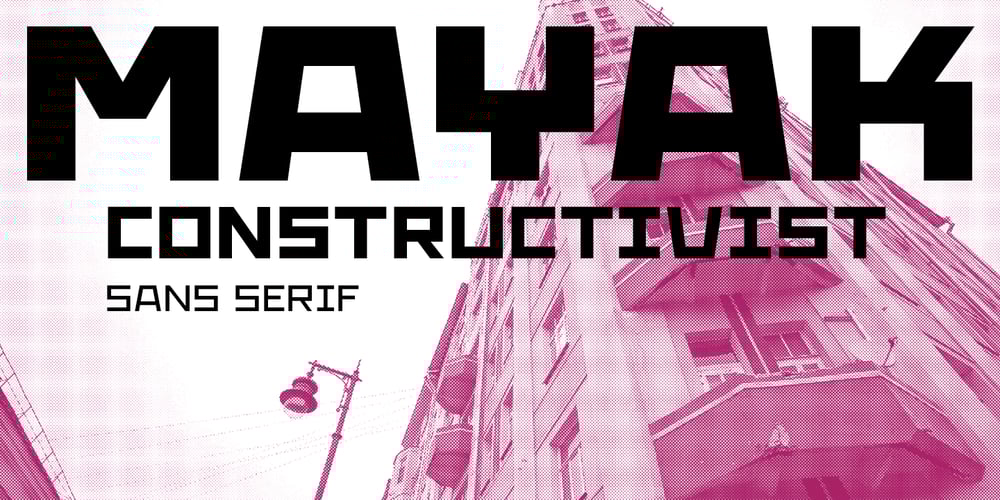
Mayak Font Family was designed by Dmitry Kirsanov, Yana Nosenko and published by ParaType. Mayak contains 12 styles and family package options. Mayak is a geometric sans serif inspired by the Soviet constructivist fonts of the 1920s-1930s. It contains traditional upper and lower case characters as well as small caps and a great number of stylistic alternates. The font comes in 12 styles: 4 weights in 3 widths. Mayak was designed by Yana Nosenko with contributions from Dmitry Kirsanov and released by ParaType in 2017.